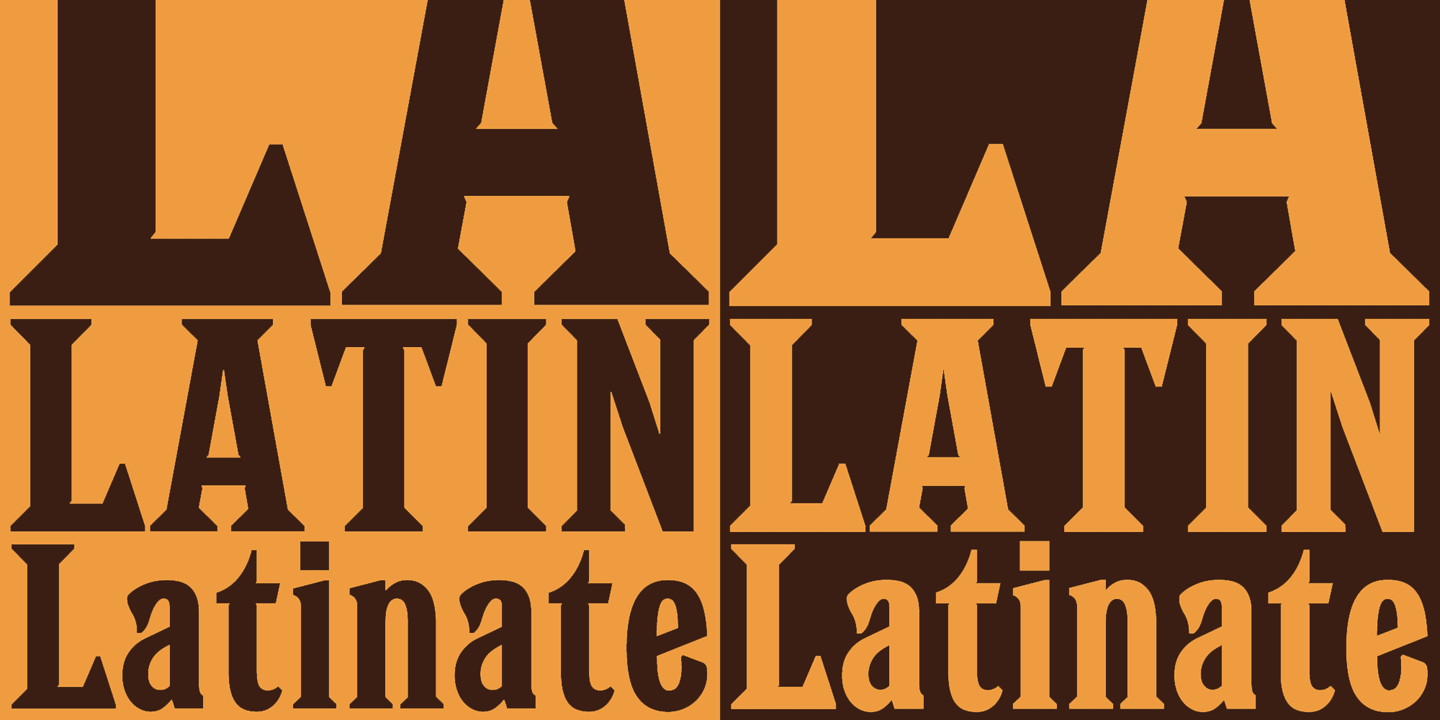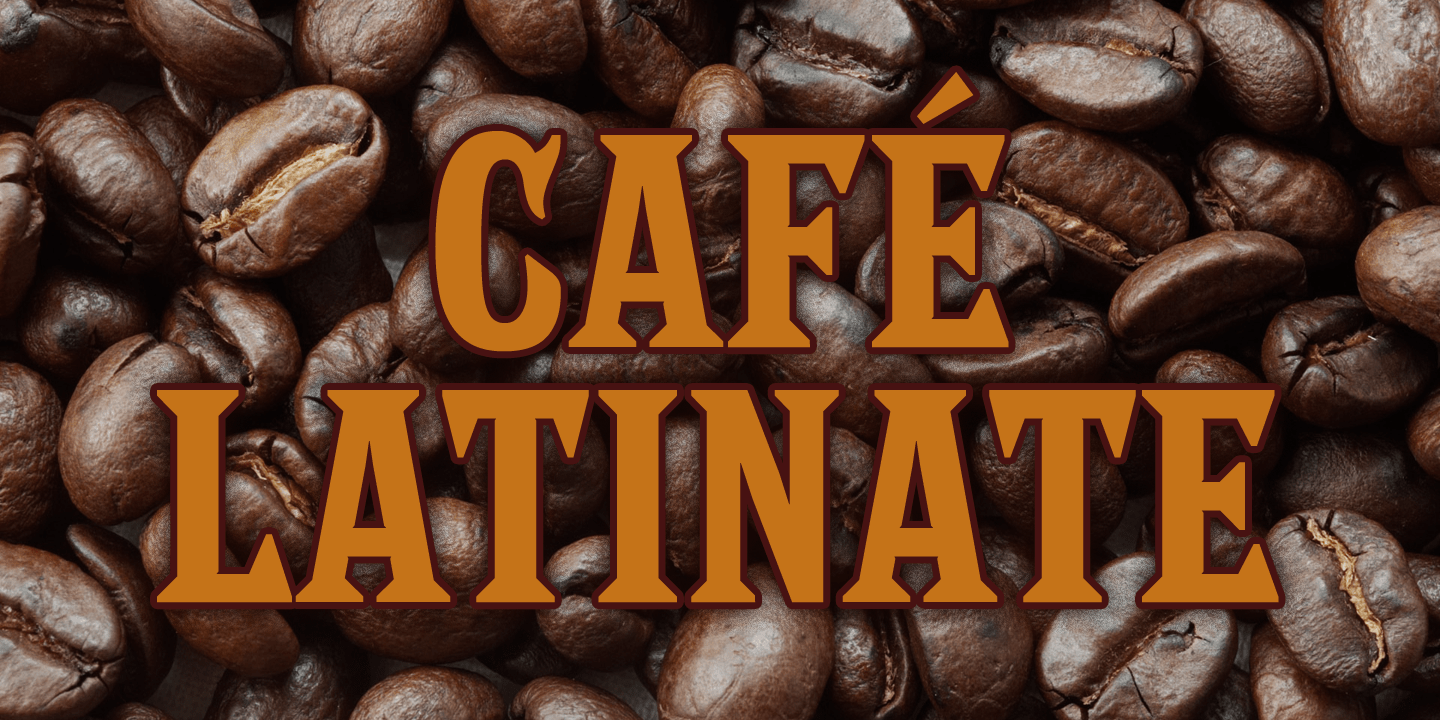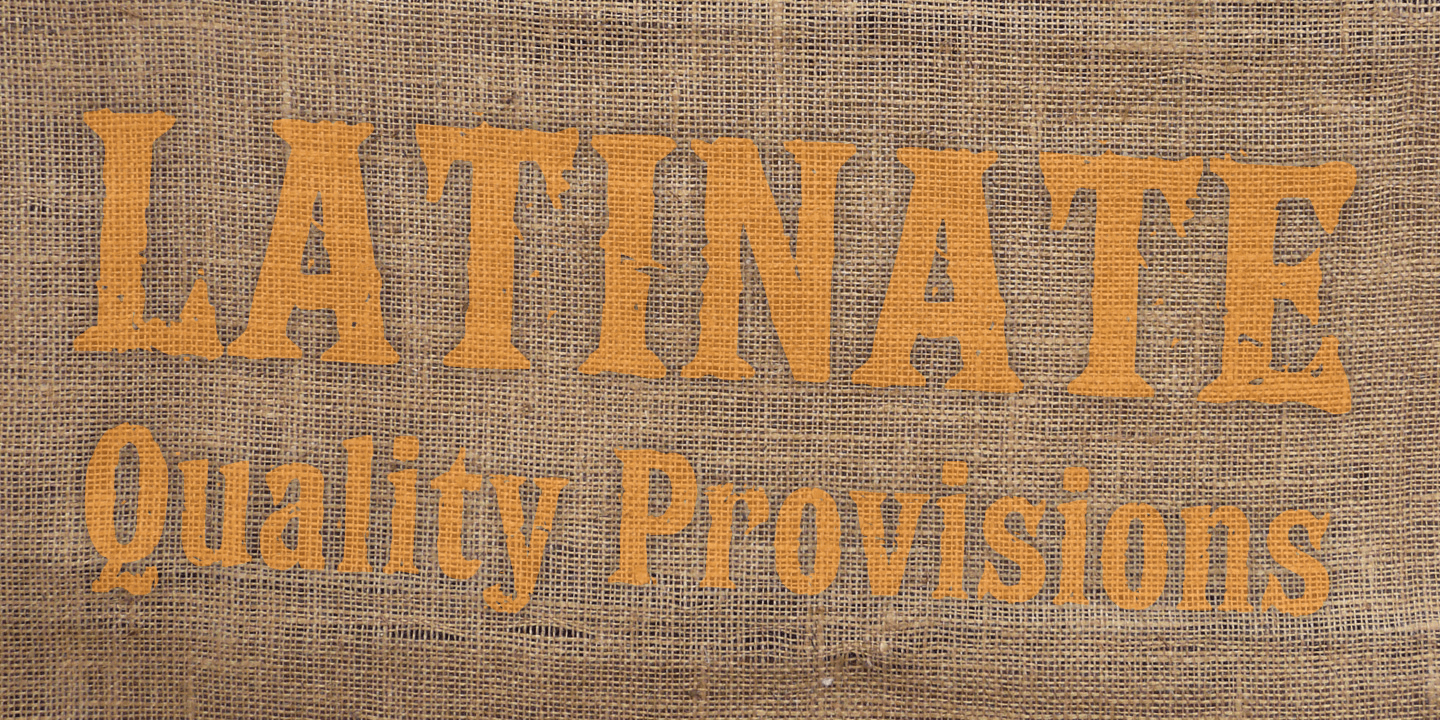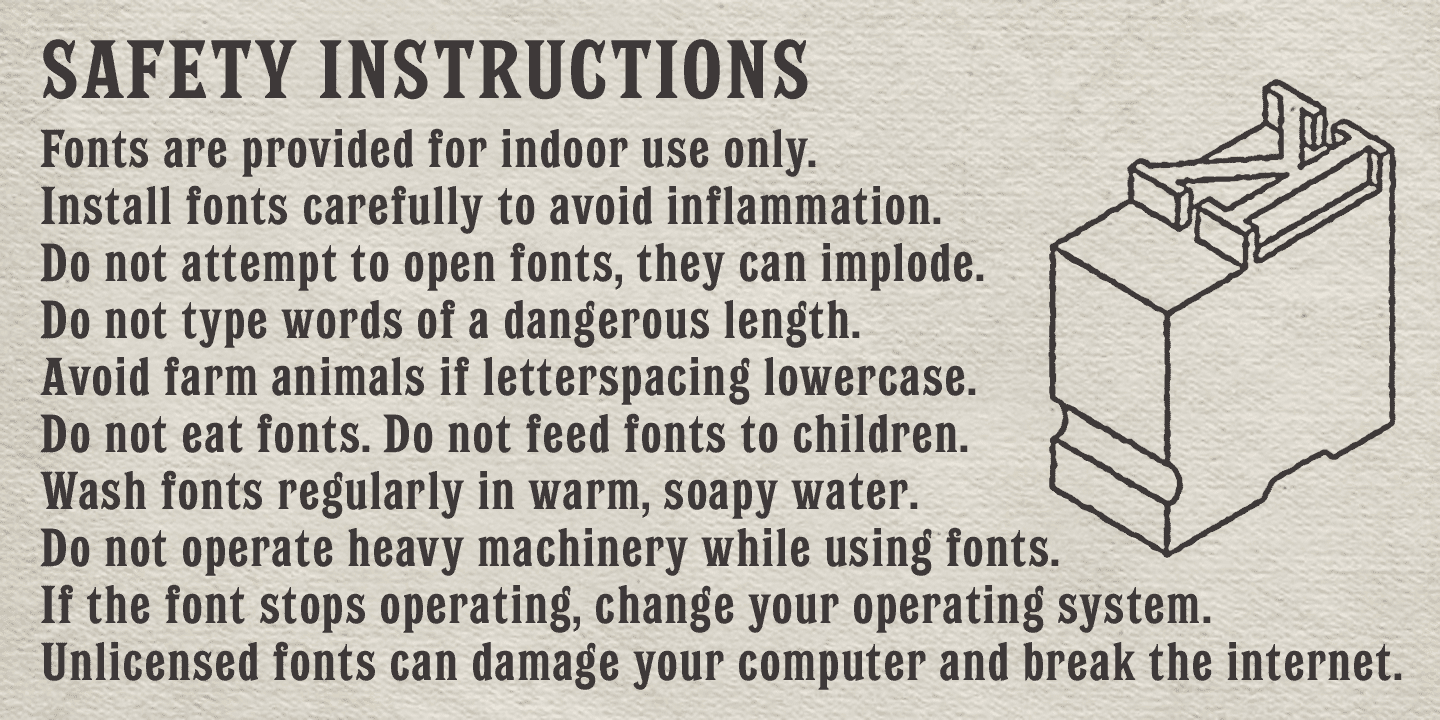
Latinate
Font Family by K-Type
Latinate is a condensed Latin typeface whose sharp serifs are not as fiercely pointed as traditional Latins. The fonts are derived from the serial numbers of bus tickets issued by the Bell Punch Company in the mid twentieth century, and the Latinate Rough font is a distressed version based on scans of coarsely printed tickets.